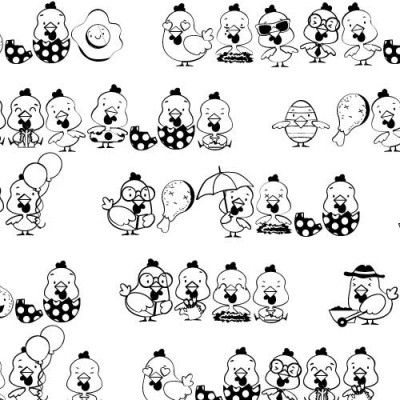
DB Chicken Nuggets - DB
This adorable doodlebat font features 26 chickens of different emotions and actions. Perfect for cards, crafts, decor, classrooms, planner stickers, scrapbook pages, parties and more!